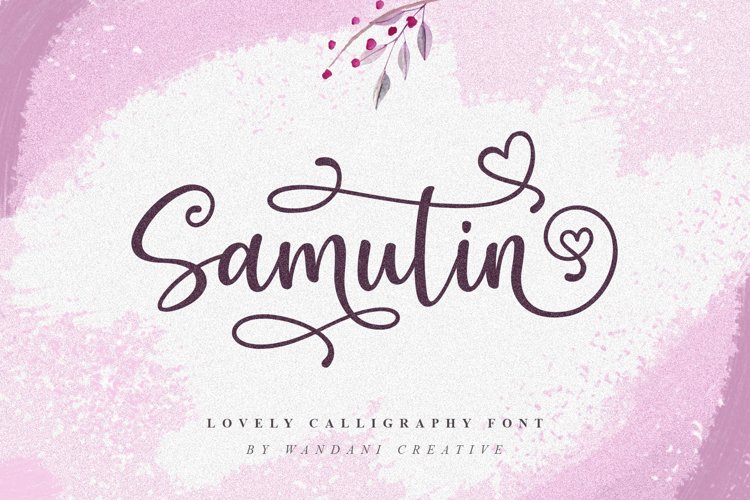
Samutin | Lovely Calligraphy Font
Samutin
is a modern calligraphy font with special heart characters. Fall in love with its authentic feel and use it to create gorgeous wedding invitations, beautiful stationary art, and cute greeting cards.
Samutin Font come with +600 glyphs (Alternate & Ligature). The alternative characters were divided into several Open Type features such as Swash, Stylistic Sets, Stylistic Alternates, Contextual Alternates. The Open Type features can be accessed by using Open Type  programs such as Adobe Illustrator, Adobe InDesign, Adobe Photoshop Corel Draw X version, And Microsoft Word. And this Font has given PUA unicode (specially coded fonts). so that all the alternate characters can easily be accessed in full by a craftsman or designer.
Main Feature:
• Stylistic Alternates ( ss01 - ss14)
• Number
• Punctuation
• International Languange
• Symbols Support
• PUA Unicode
• and more